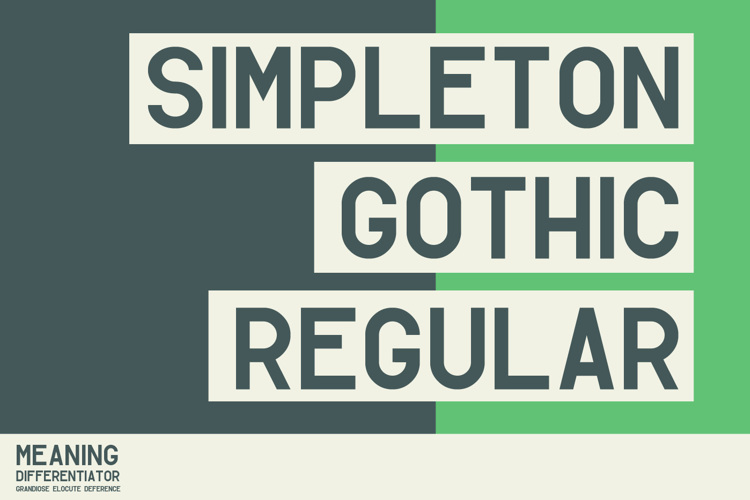
Simpleton Gothic Font
Simpleton Gothic is a garish neo-grotesque gothic sans serif. The typeface is proportioned to be the exact opposite of elegance.
Simpleton Gothic Regular v2.01 adds a ton of new characters, including Latin-1 Supplement, Latin Extended-A, Spacing Modifiers, Combining Diacritical Marks, Punctuation, and Superscript / Subscript numbers. Total glyph count is now 478!